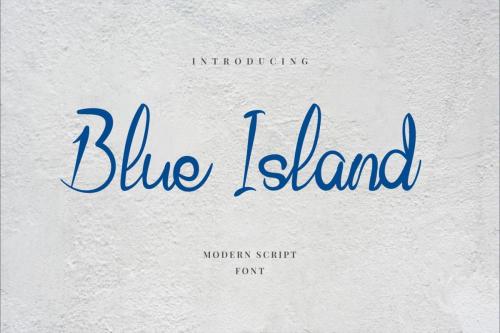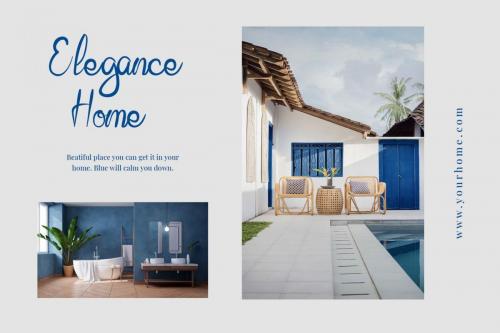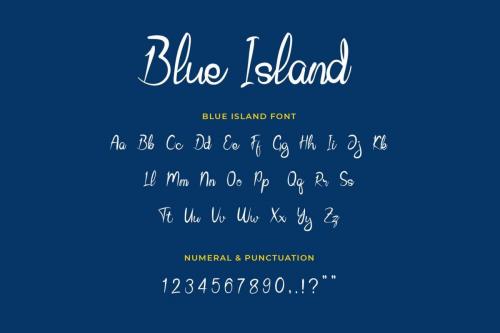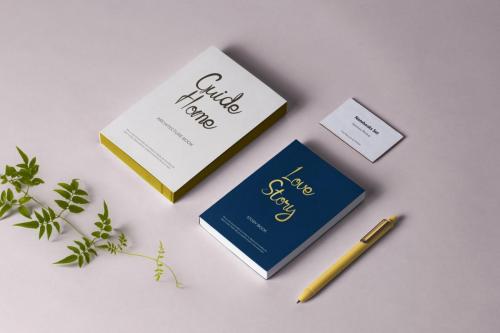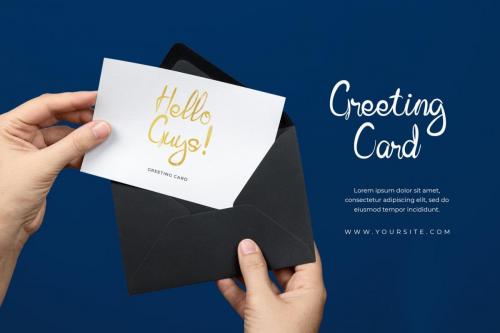
Blue Island Font is a more modern type of script font. With the unique OpenType in it and the ligature will add aesthetic value to your design product.
Having a distinctive curved handwriting design will make this font suitable for various design projects, such as invitations, greeting cards, posters, name cards, quotes, blog headers, branding, logo, fashion, apparel, letter, stationery and more.